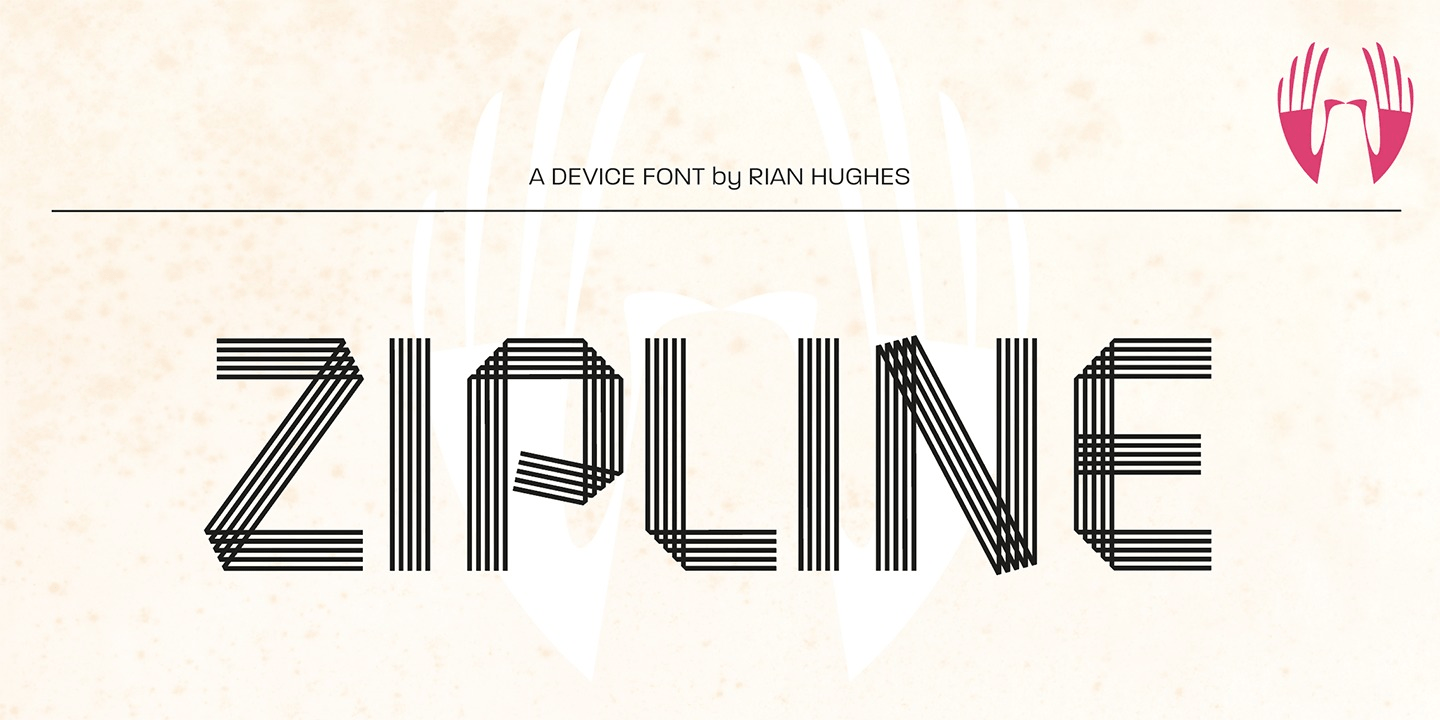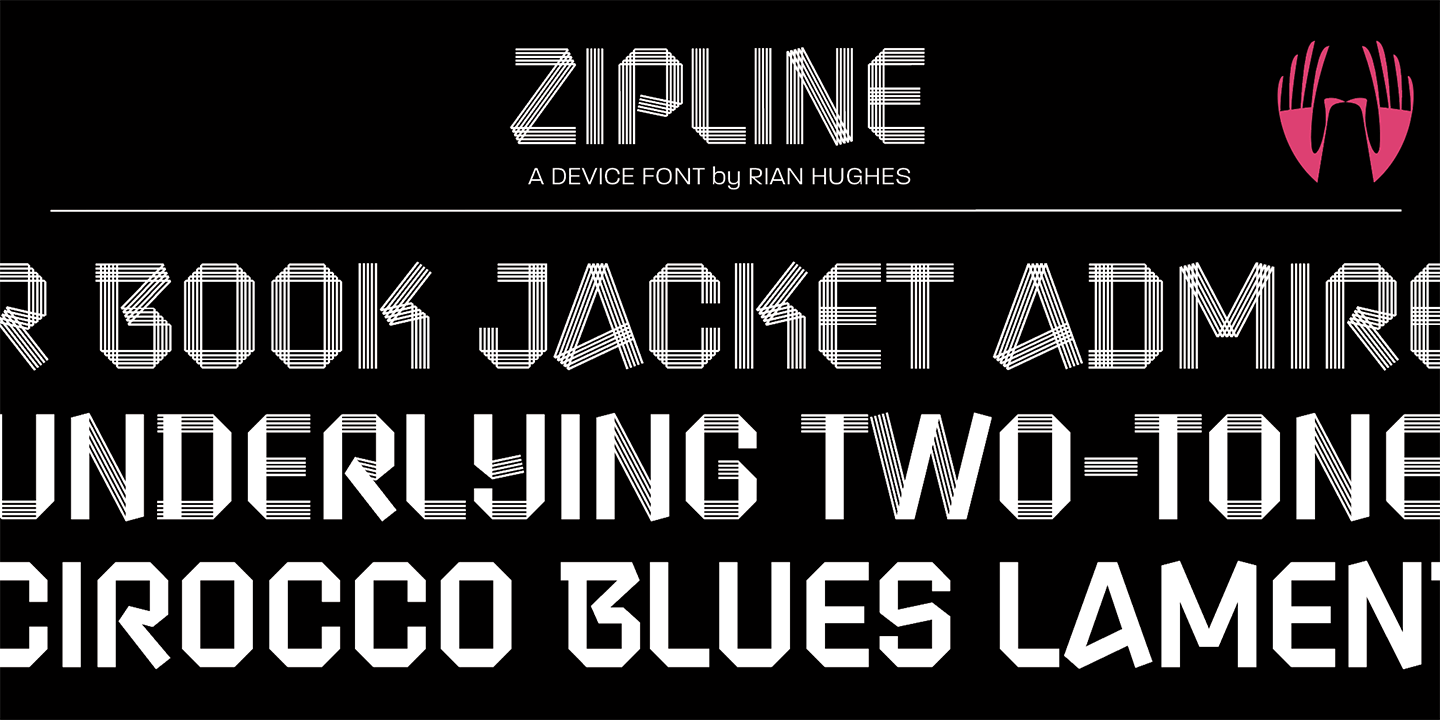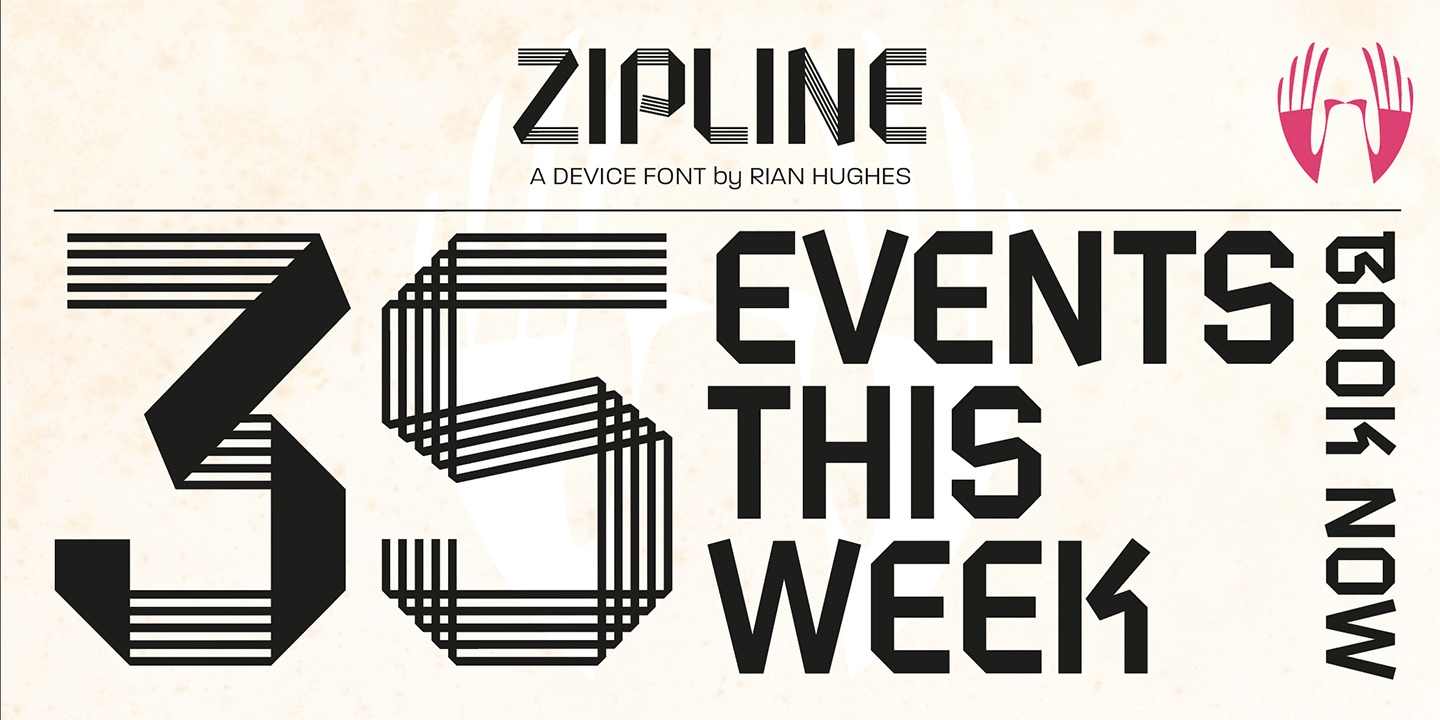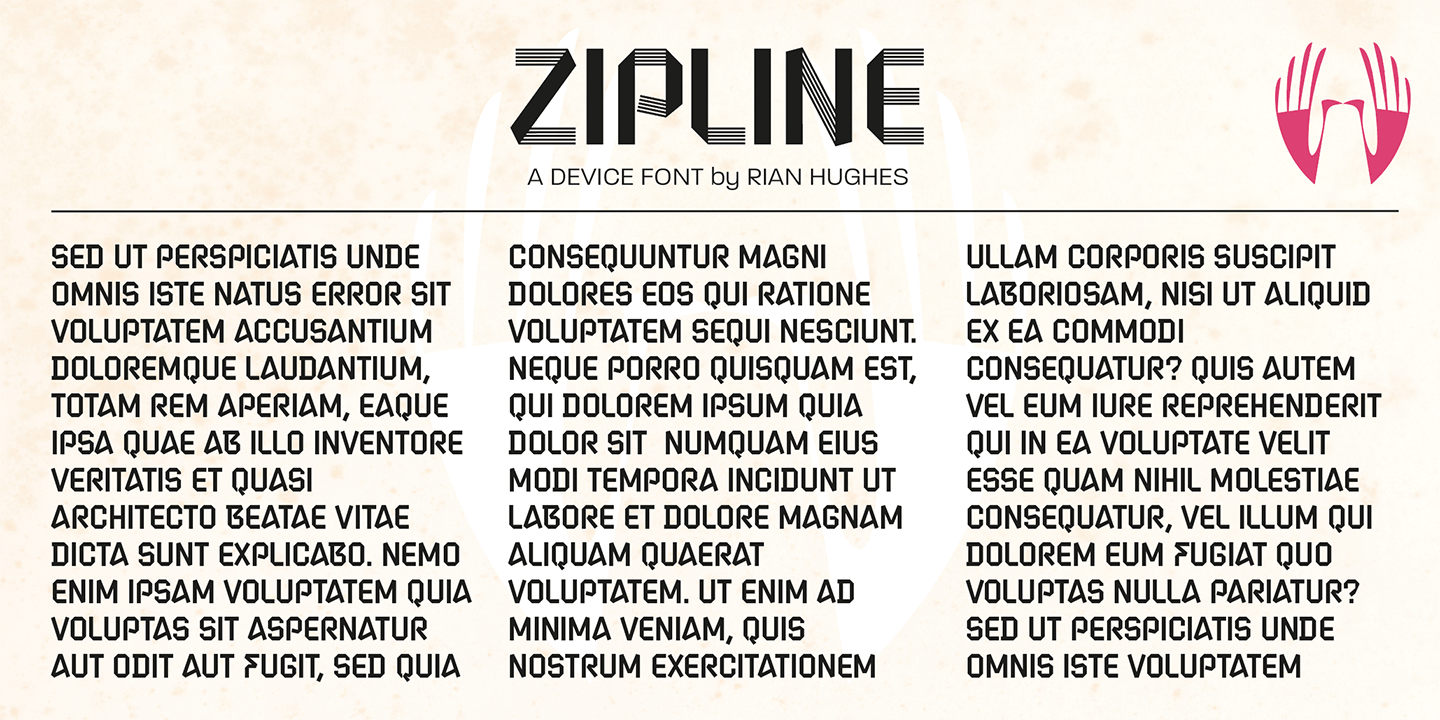
Zipline
Font Family by Device Fonts
Zipline is a geometric sans built from a folded line or ribbon.
Contemporary and stylish, with a certain decorative flair.
There are three variants that can can be freely mixed for effect - a plain, solid version, a decorative lined version, and a half-solid version.
Most effective used in short words or phrases at larger sizes, where the details can be appreciated.